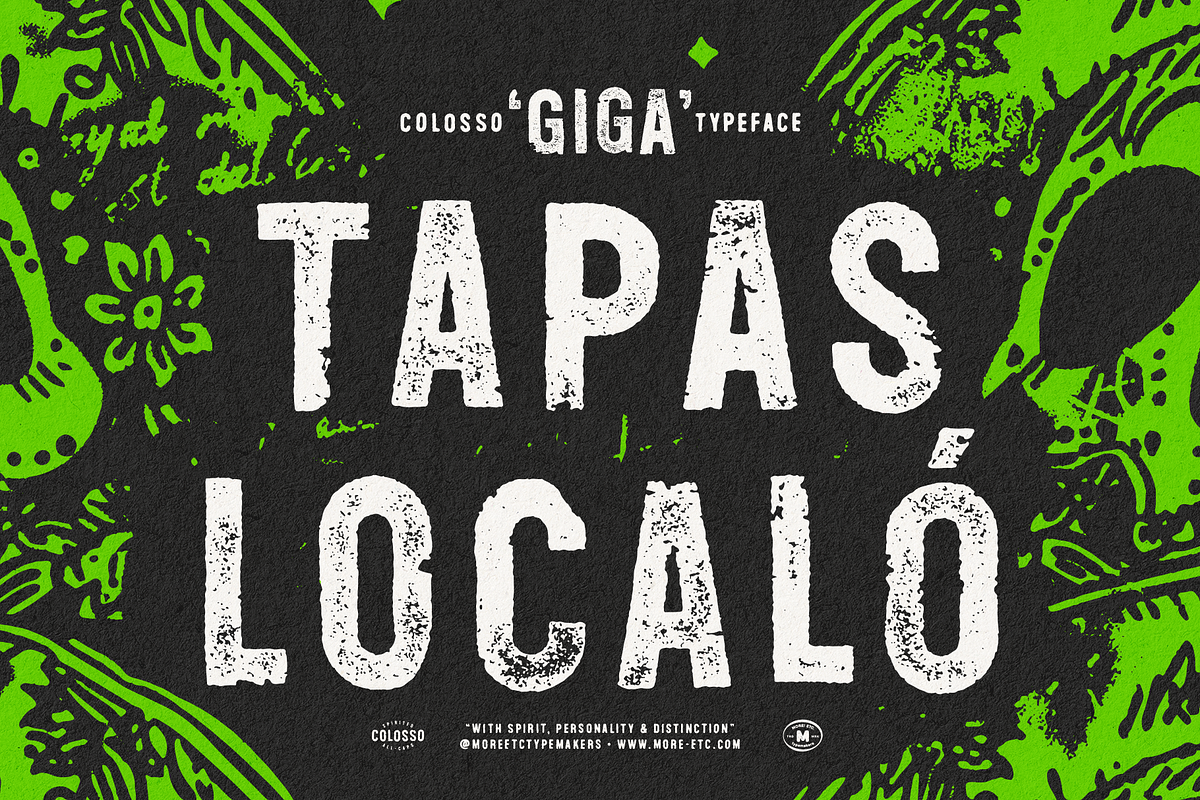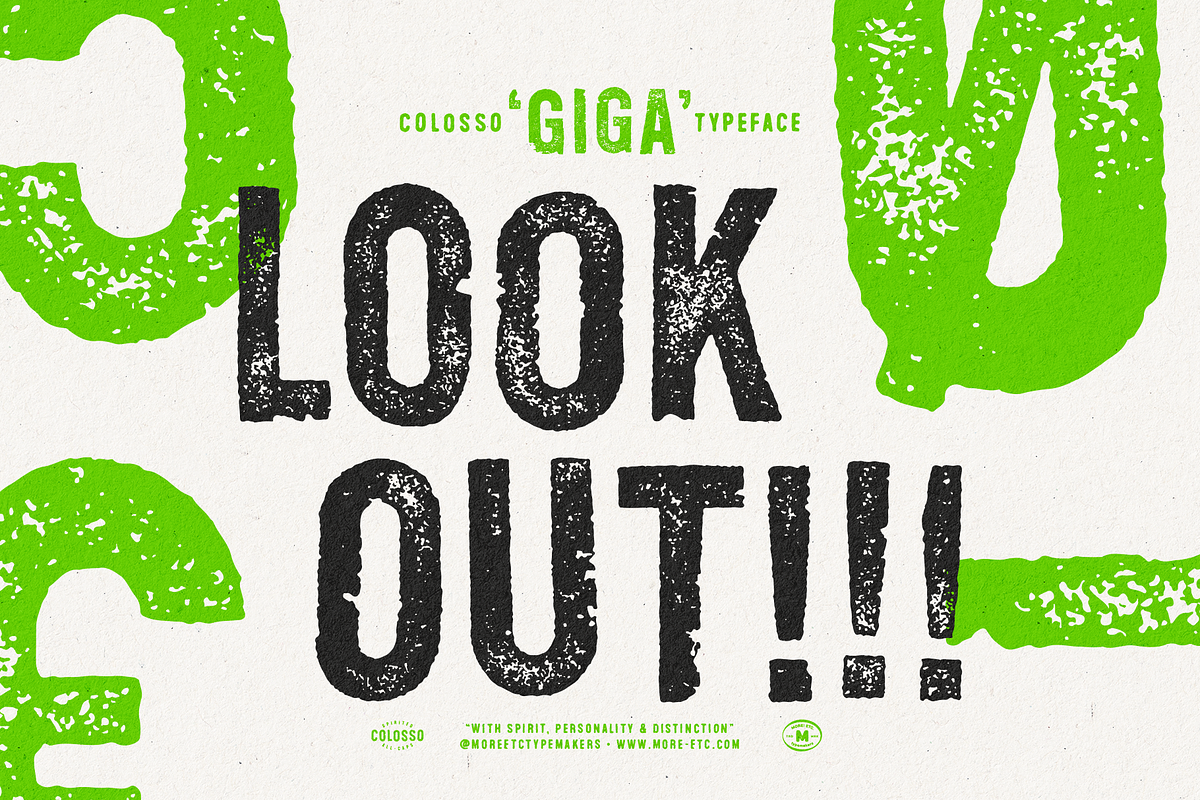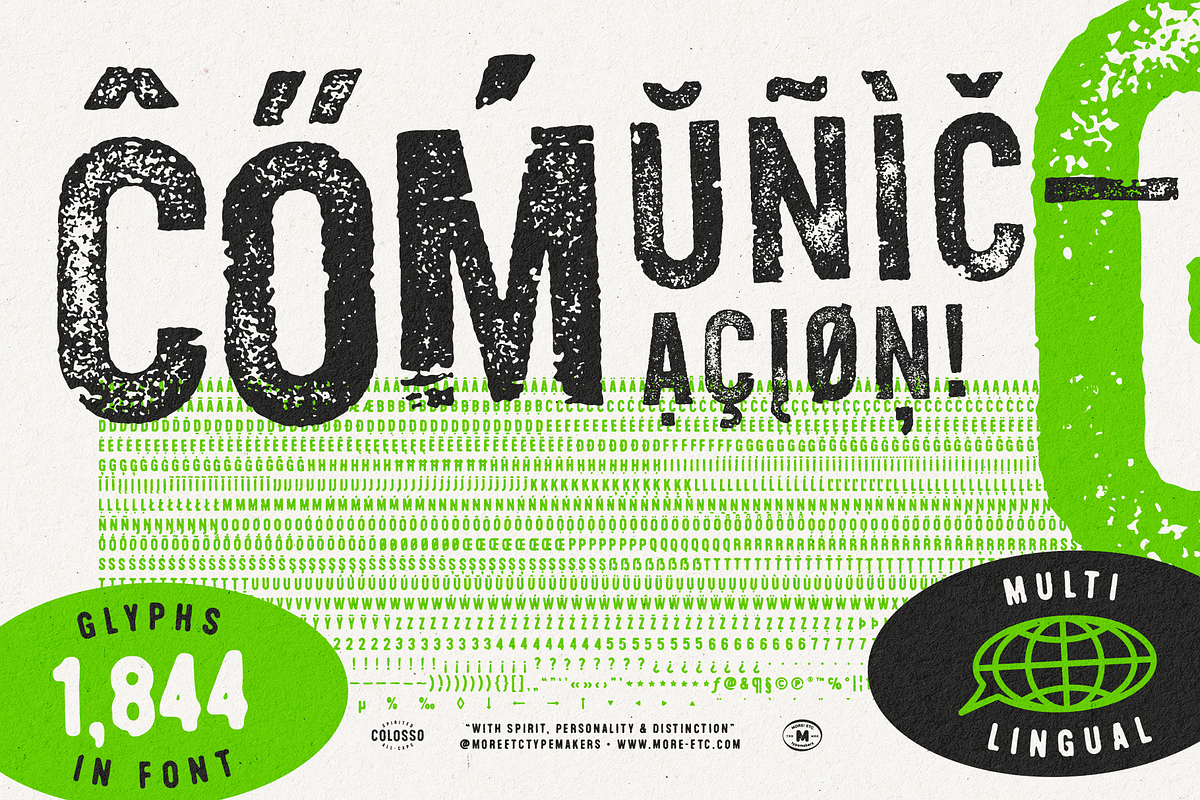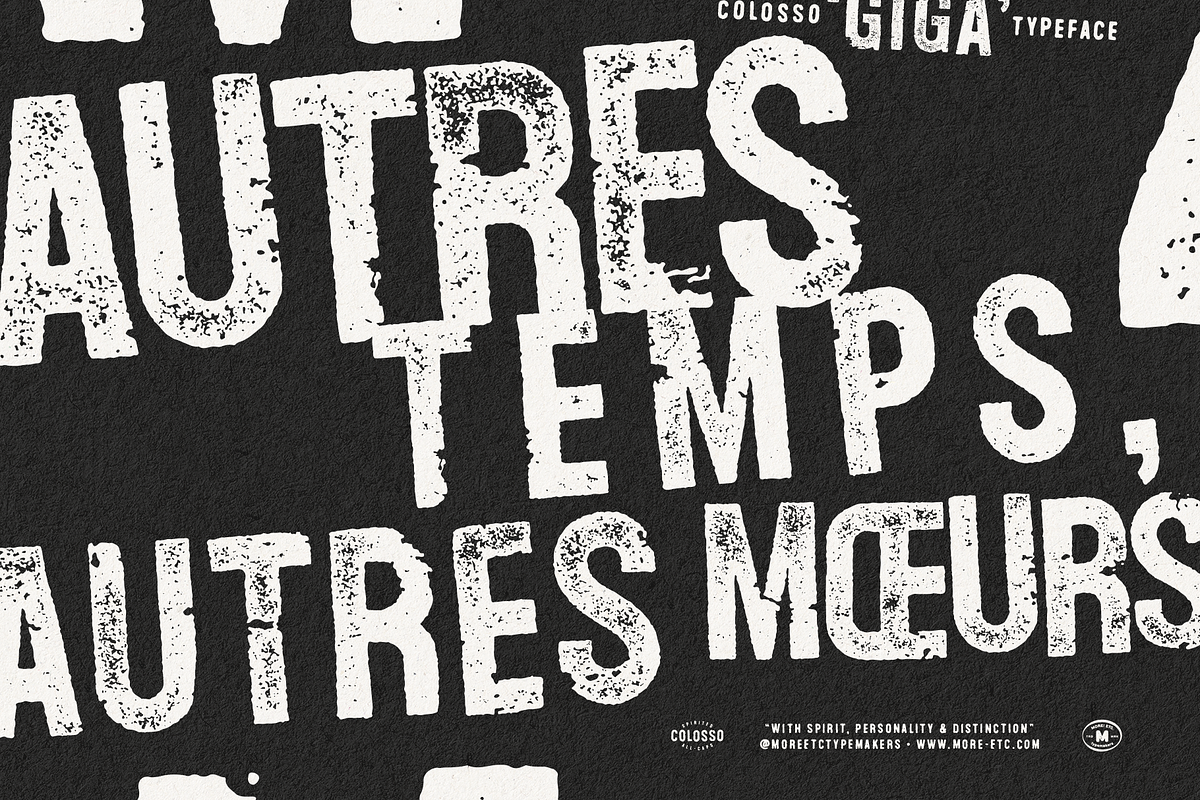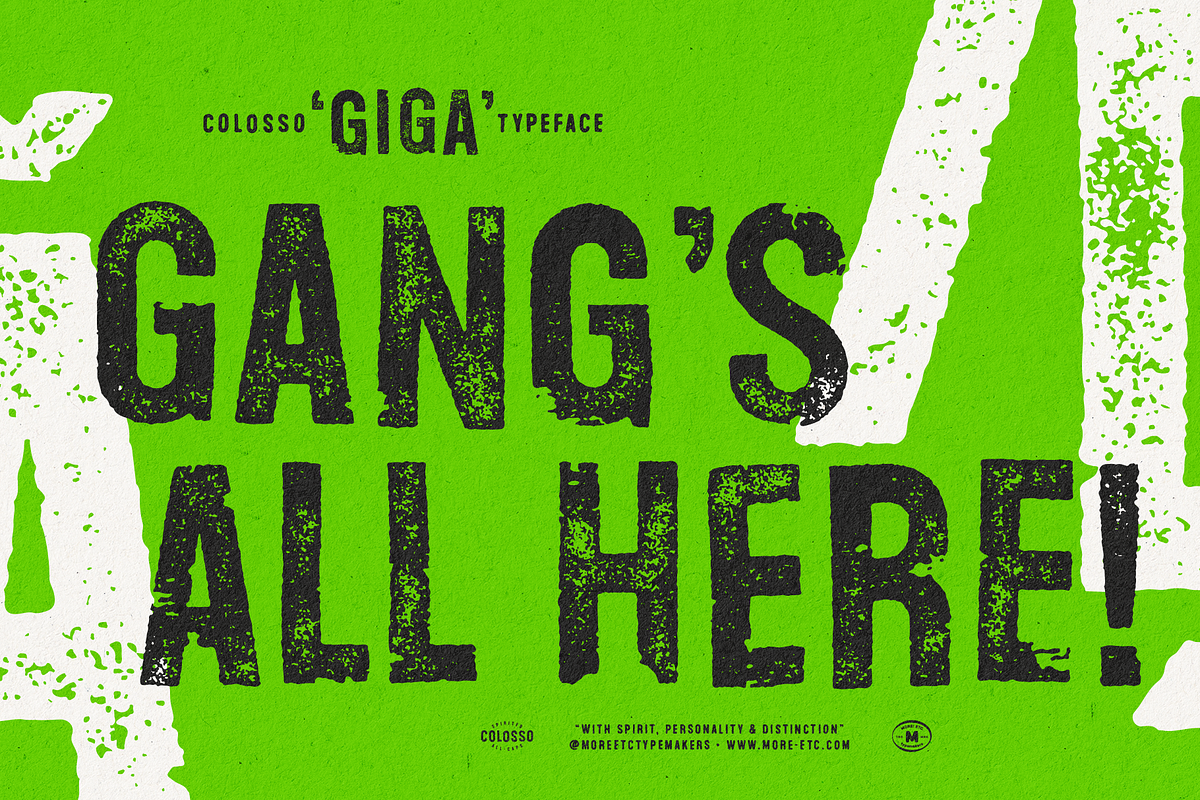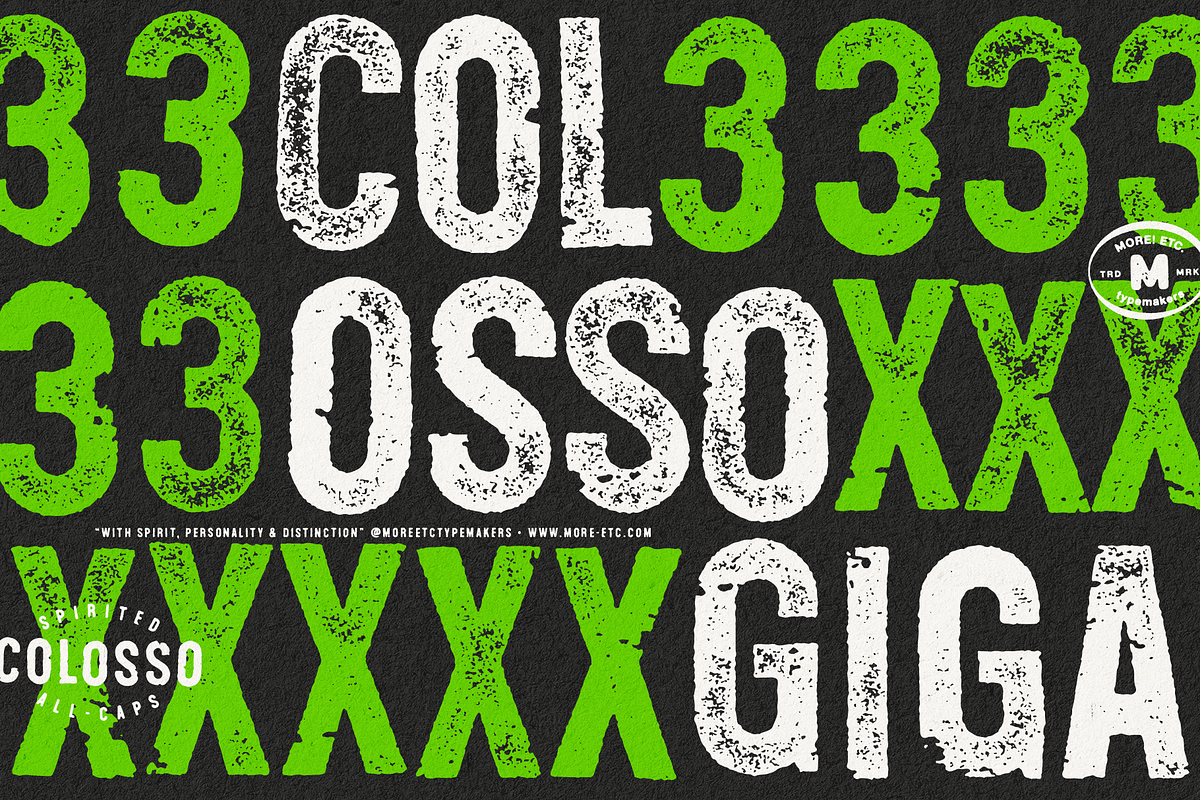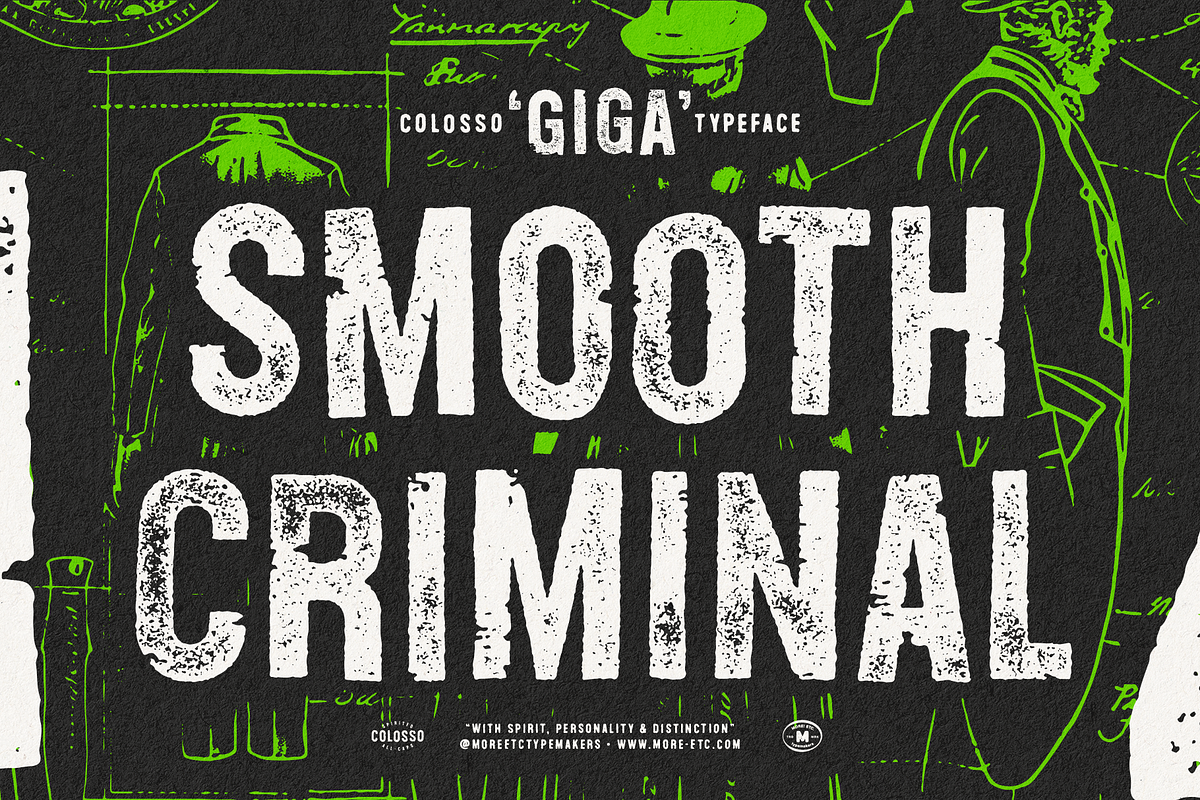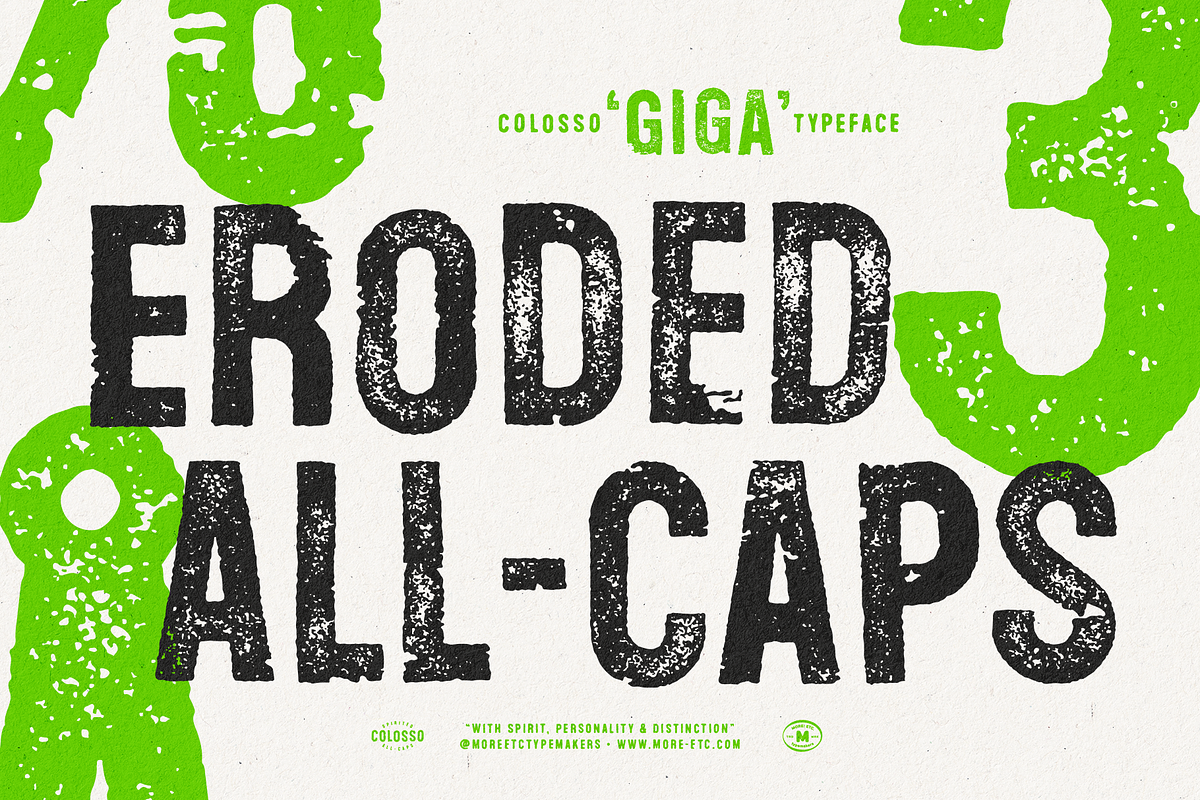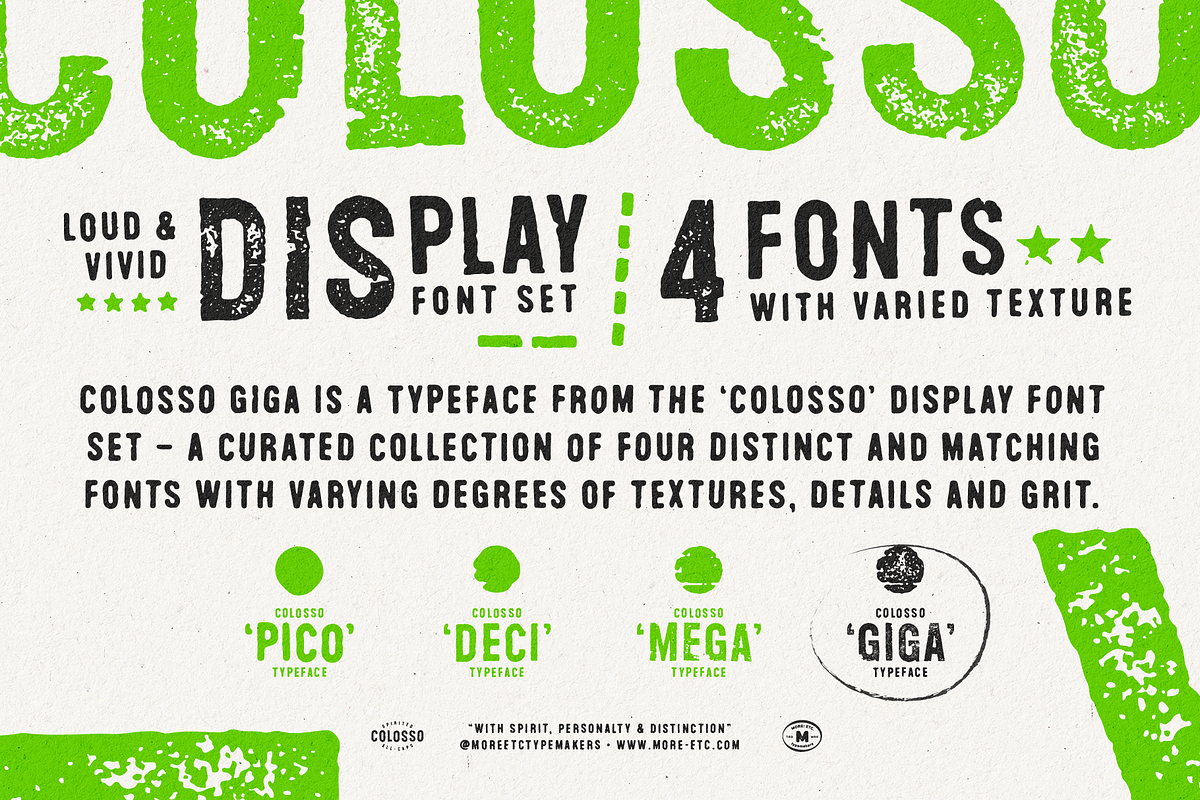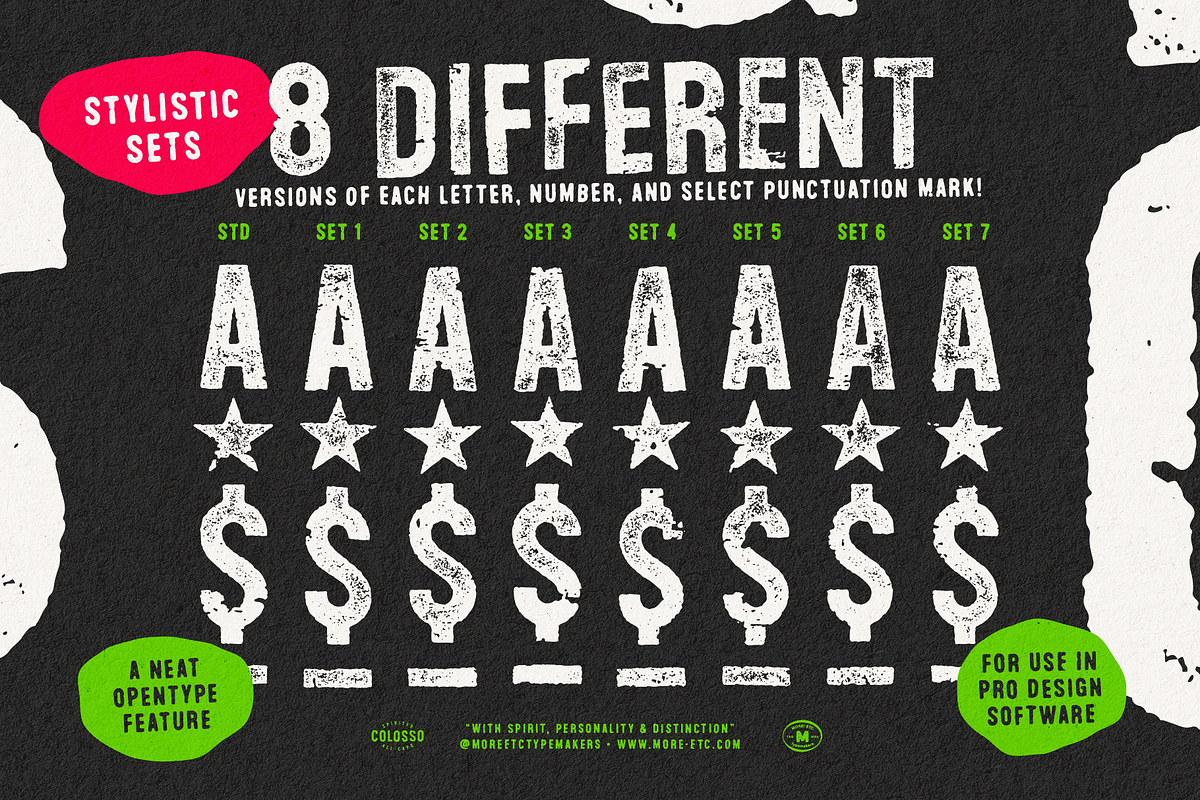
Colosso Giga Display Font
Colosso Giga is a typeface from the Colosso’ Display Font Collection – a curated collection of four distinct and matching fonts with varying degrees of textures, details and grit.
Step into the world of 'Colosso,' a collection of all-caps display fonts that transform typography into an artistic masterpiece. Drawing inspiration from the rich legacy of transfer lettering and vintage printing techniques, this collection is a tribute to the human imperfections inherent in handcrafted printmaking. It embraces the DIY aesthetics reminiscent of old fanzines, echoes the typographic expressions found in mid-century artworks, and channels the rebellious spirit of vintage punk flyers. Immerse yourself in the analogue authentic look of these typefaces – a purposeful departure from the sterile precision of computer-made fonts. Welcome to 'Colosso,' where every character is a bold statement in the art of display font design.
Colosso Giga – Eroded, very detailed and over-the-top
'Giga' roars with authenticity, resembling ink-stamped lettering and the detailed chaos of old letterpress wood type prints. Preferably used in big text sizes, it's perfect for attention-grabbing elements where every detail matters.
OpenType – Advanced Contextual Alternates
Unlocking a realm of design possibilities, the 'Colosso' Font Family introduces an innovative OpenType feature – Advanced Contextual Alternates. Within this feature, all four fonts in the collection showcase a dynamic and advanced OpenType capability. Each letter, number, and select punctuation mark boasts 7 alternate glyphs, providing a total of 8 unique variations for every character. Activating the Contextual Alternates feature (calt) in your OpenType-friendly application triggers a captivating cycle through classes of vowels, consonants, numbers, and marks. This results in a delightful interplay of characters, introducing a sense of randomness and infusing an unparalleled authenticity into your design projects. Witness your creations come alive with an organic, ever-changing rhythm, courtesy of this neat feature.
The 'Colosso' Font Family boasts an extensive set of diacritics, catering to a wide array of Latin languages. Break language barriers with support for 285 languages, making 'Colosso' your truly global companion in creative expression.
Why 'Colosso'?
This font collection transcends conformity; it's about standing out. With a focus on authenticity, passion, and personality, 'Colosso' is the choice for designers who refuse to settle for the ordinary. Each character in this collection is a testament to the power of distinctive, genuine expression in the world of design.